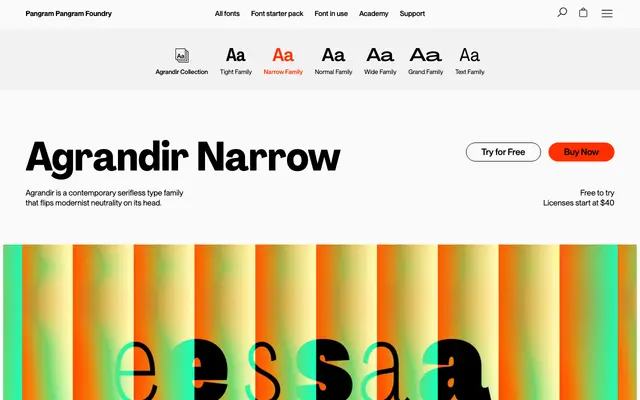
Agrandir Narrow specimen from Pangram Foundry
The narrow cut of Alex Slobzheninov's Agrandir, useful where you want personality at a tighter horizontal measure.
The Narrow width of Agrandir by Alex Slobzheninov, drawn as a tighter sibling of Normal and Tight. Fourteen styles run from Thin to Black with italics and 443 glyphs each. The alternate sets, single-storey a and Geometric/Grotesk presets carry through, so Narrow can flex inside a wider Agrandir system.